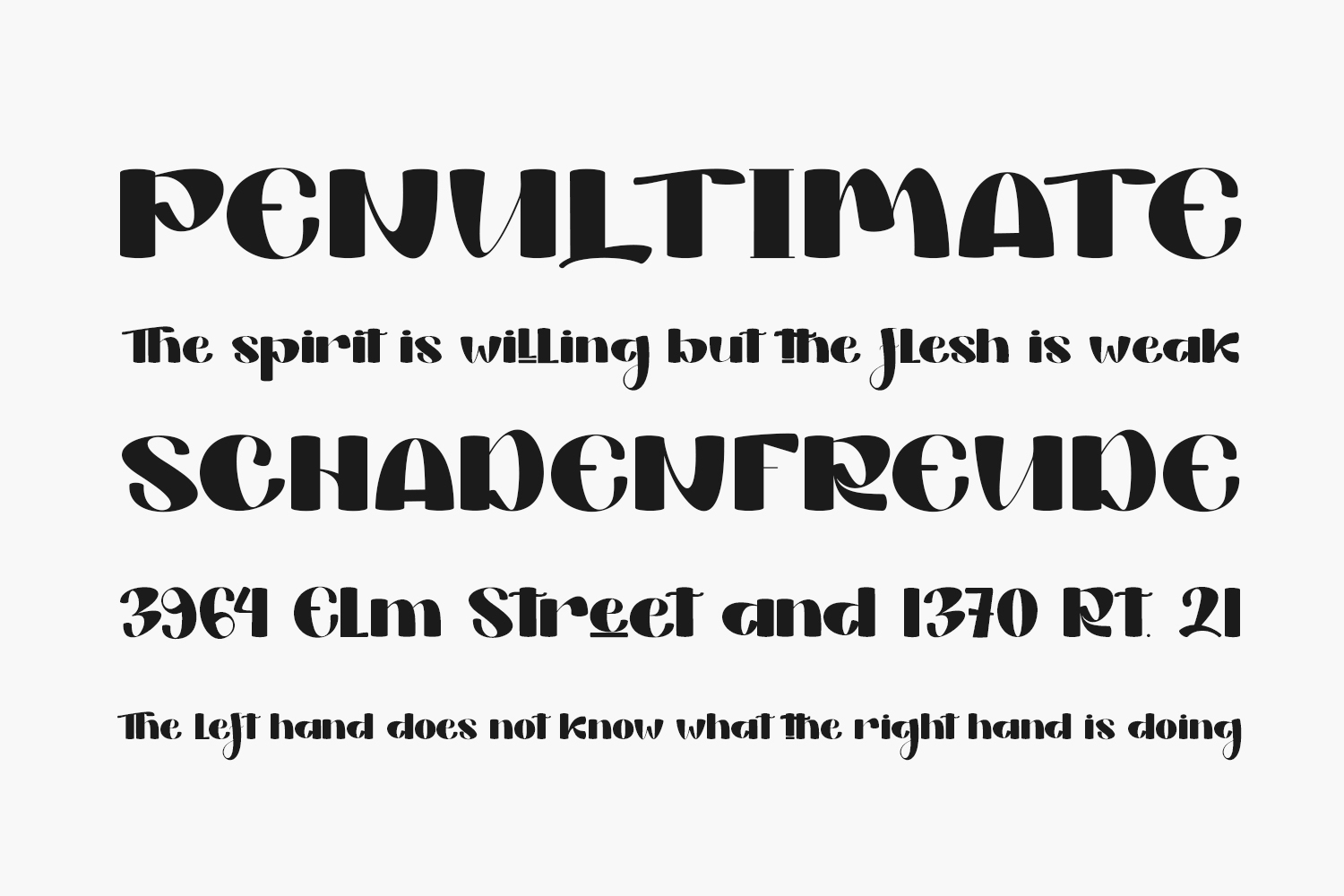
Meet Rellya Free Font Family, a captivating and unique display font that exudes charm and elegance. With its eye-catching appeal, Rellya is set to leave a lasting impression on all your design ideas. Embrace the beauty of this font as it adds a touch of sophistication to your creative projects. Let Rellya elevate your designs and captivate your audience with its distinct and enchanting look. Get ready to create stunning visuals that stand out from the crowd, courtesy of Rellya’s mesmerizing charm. Rellya Free Font Family is free for personal use only. Please purchase the full version for commercial use.
Designed by Harjuno Kristanto